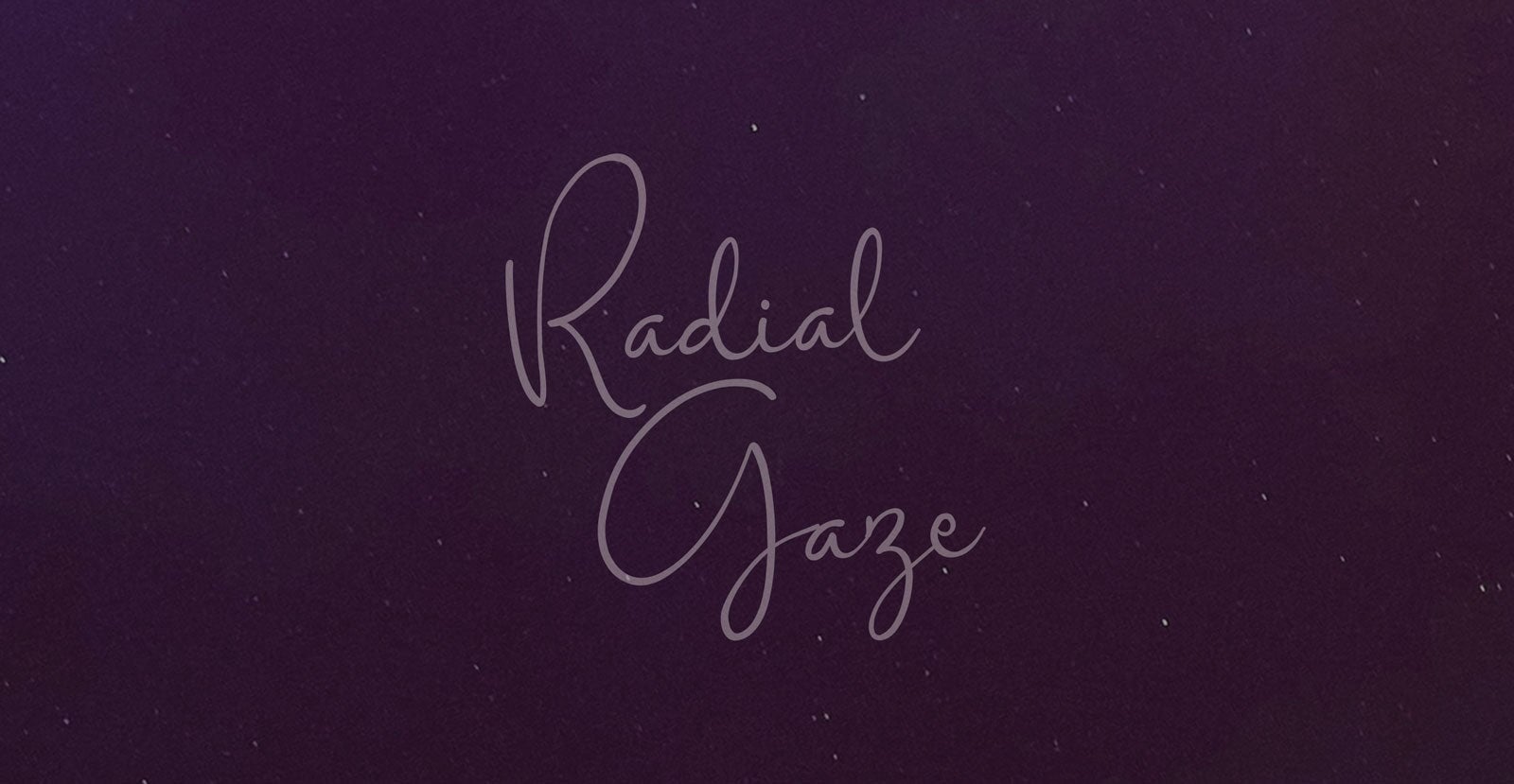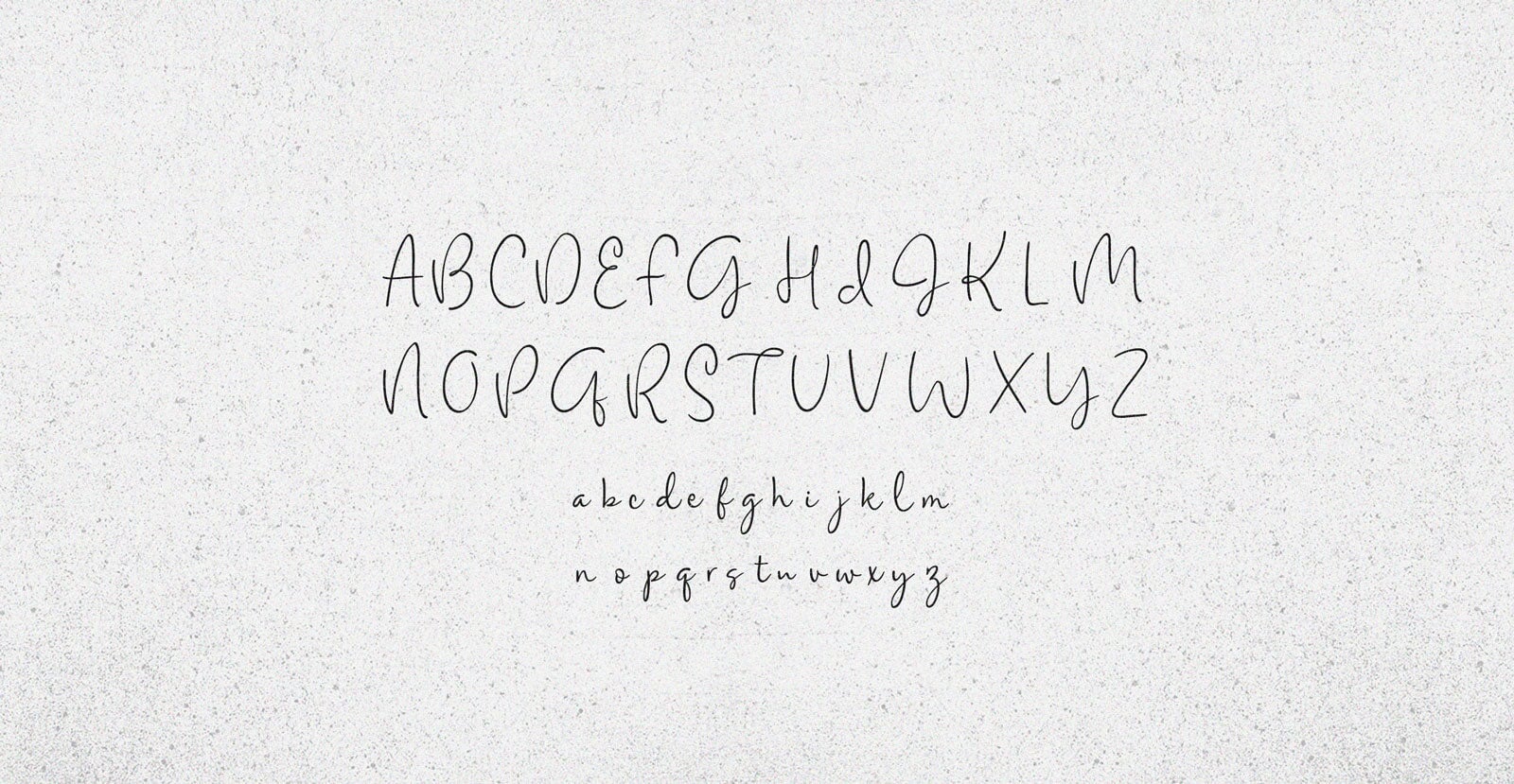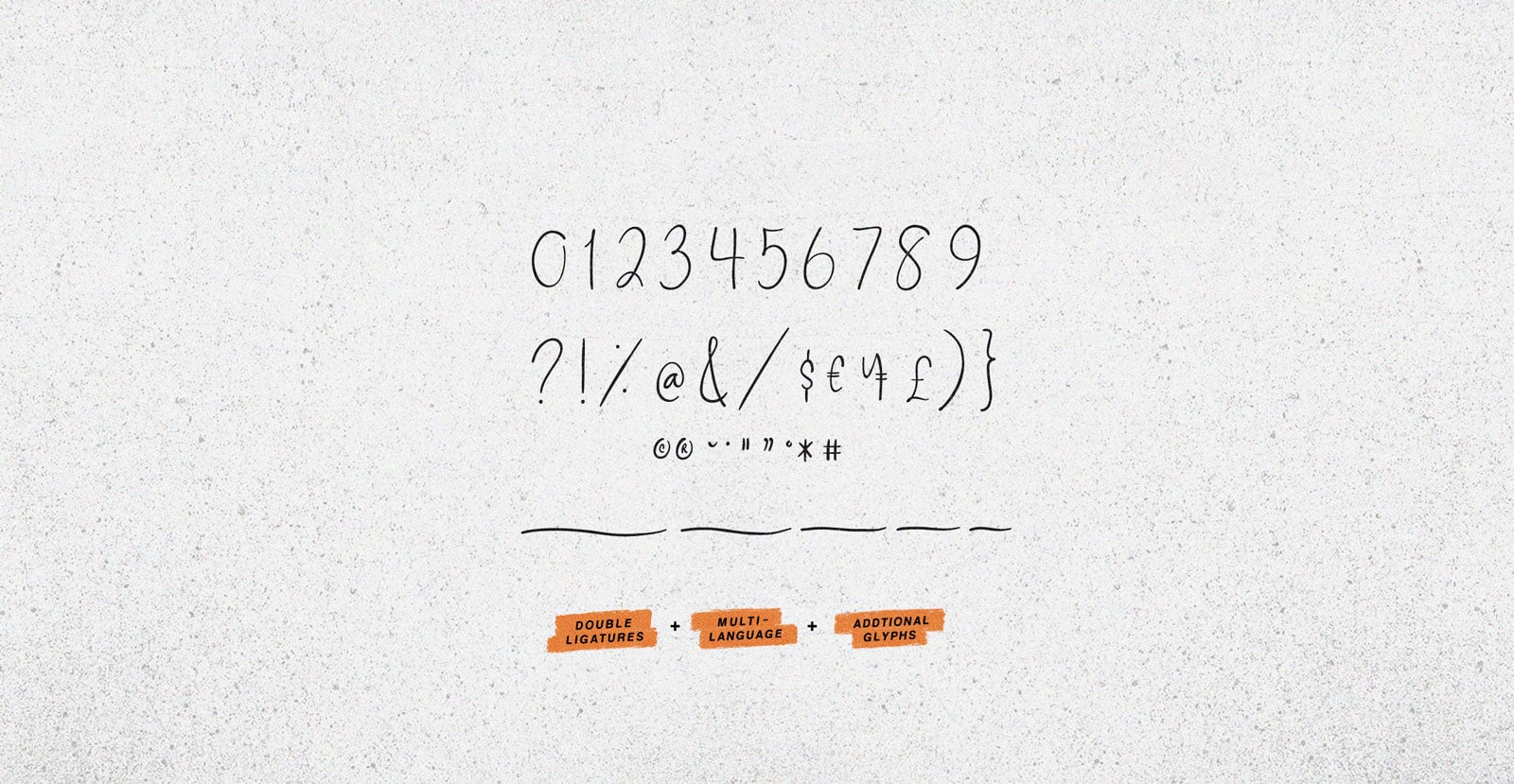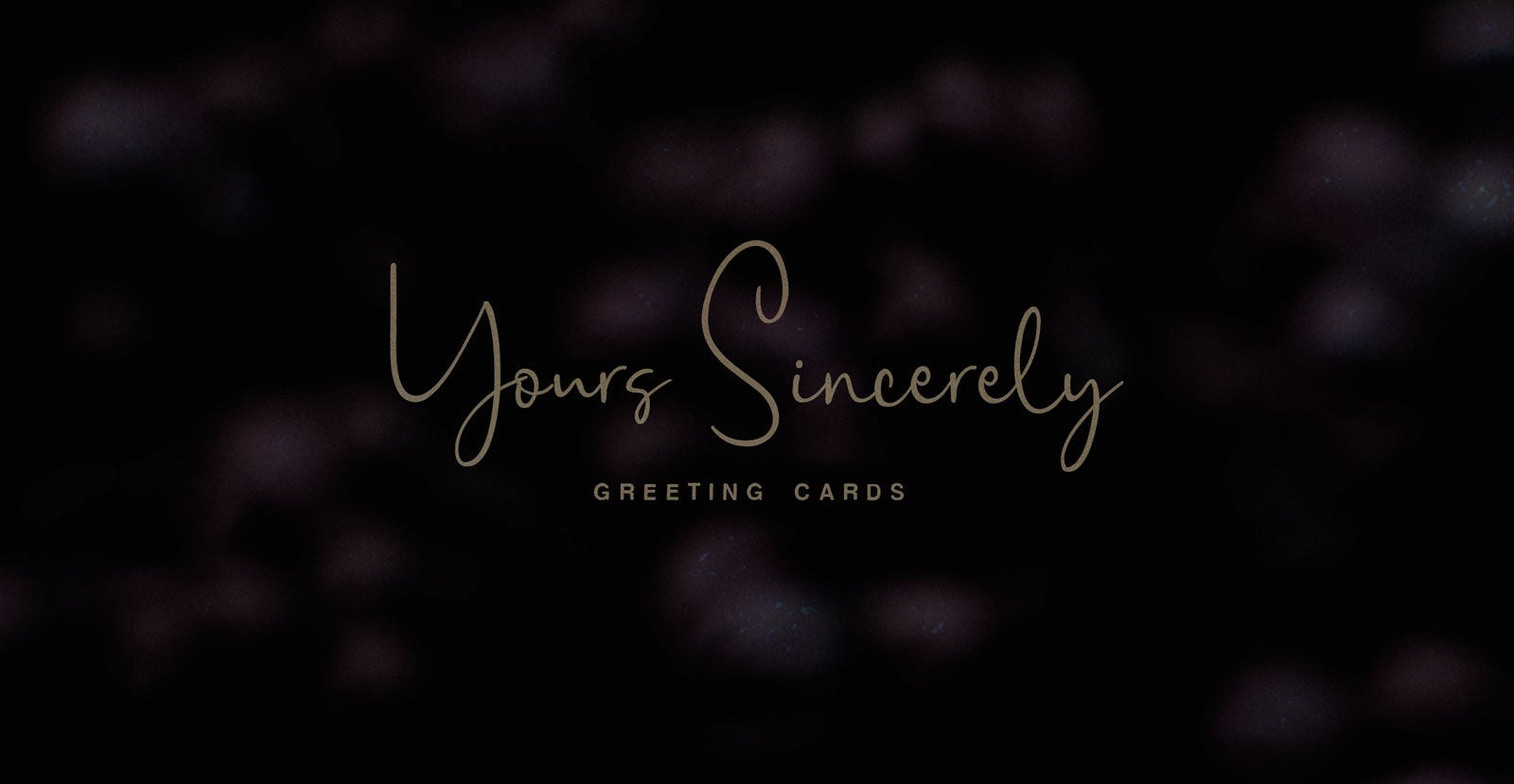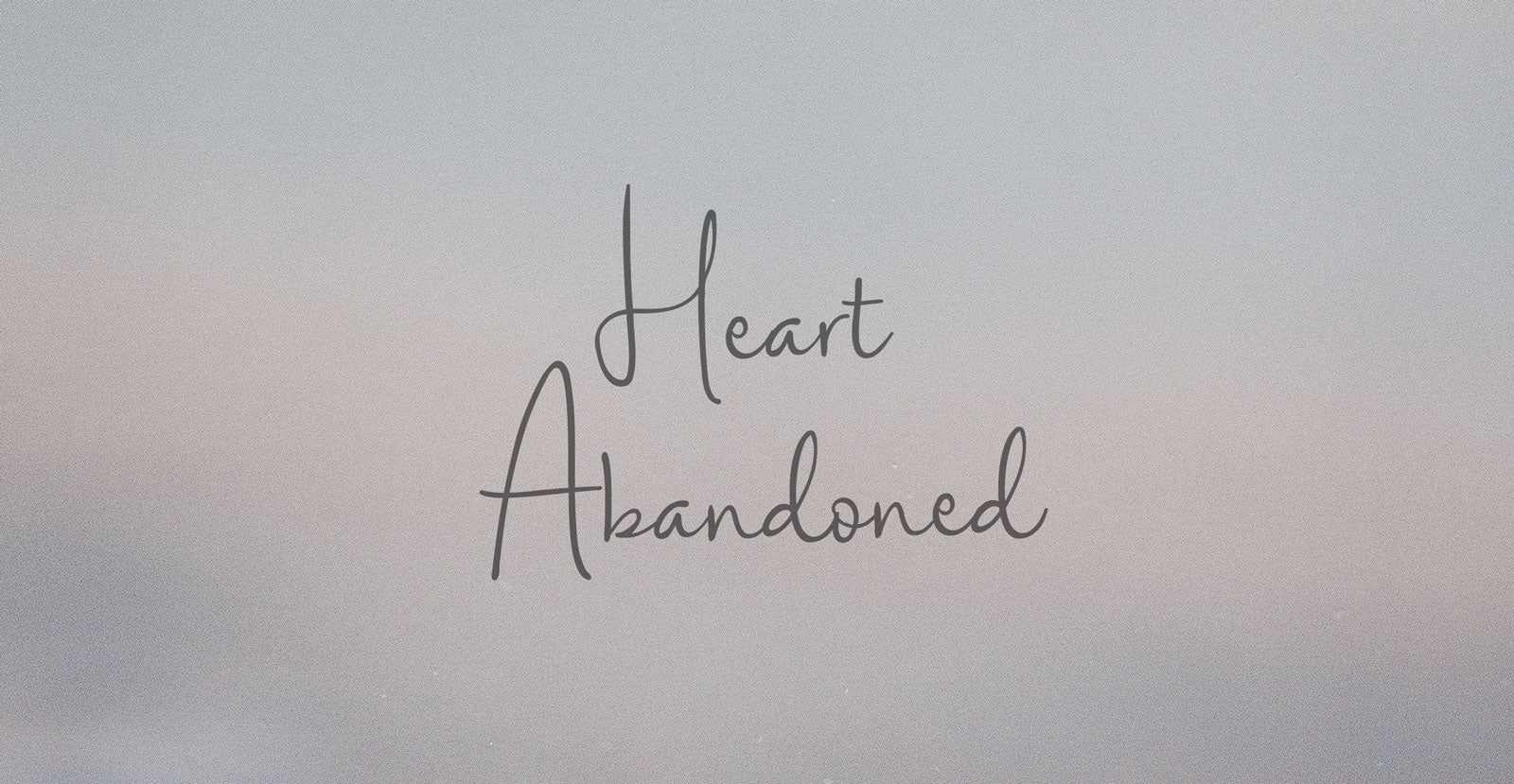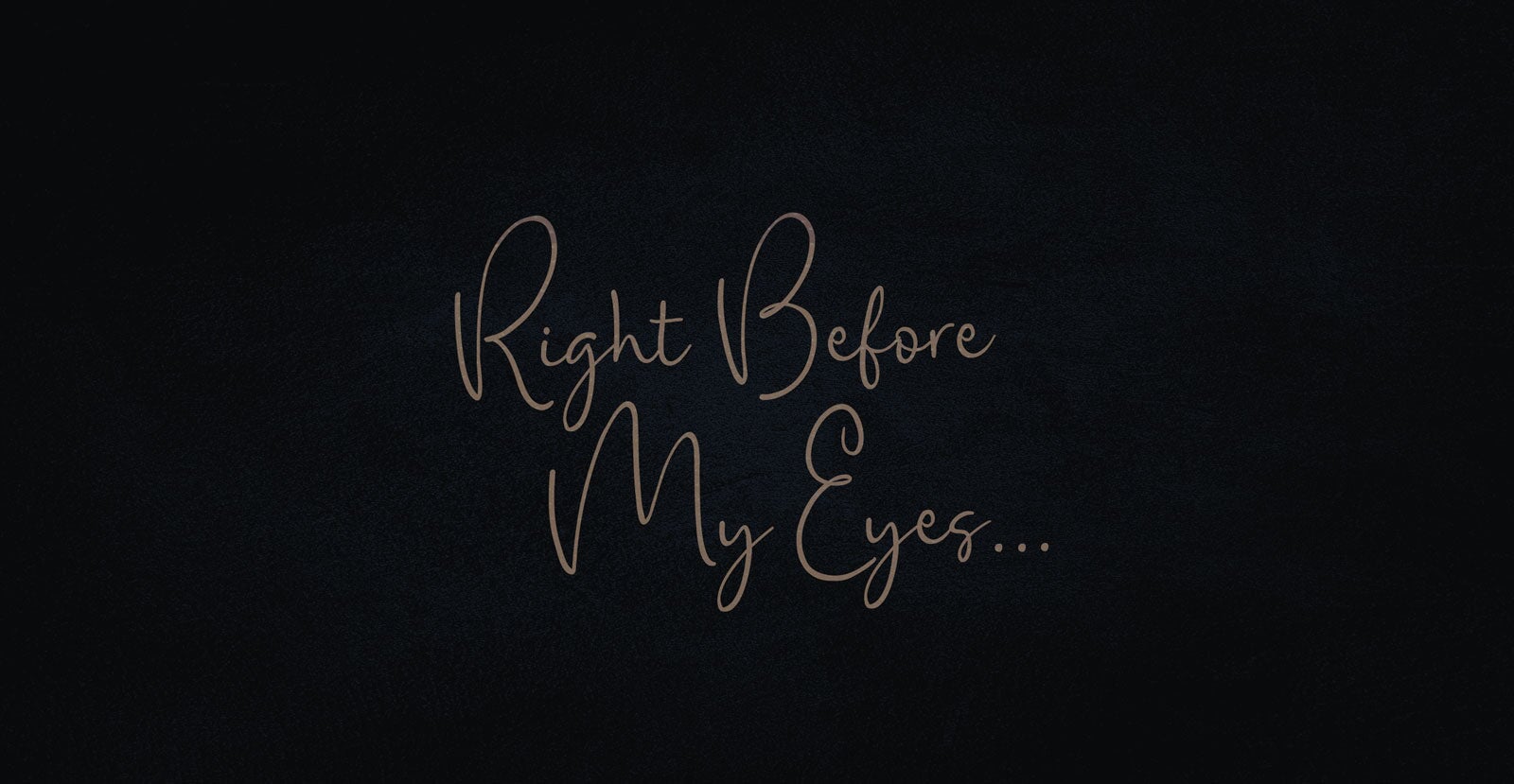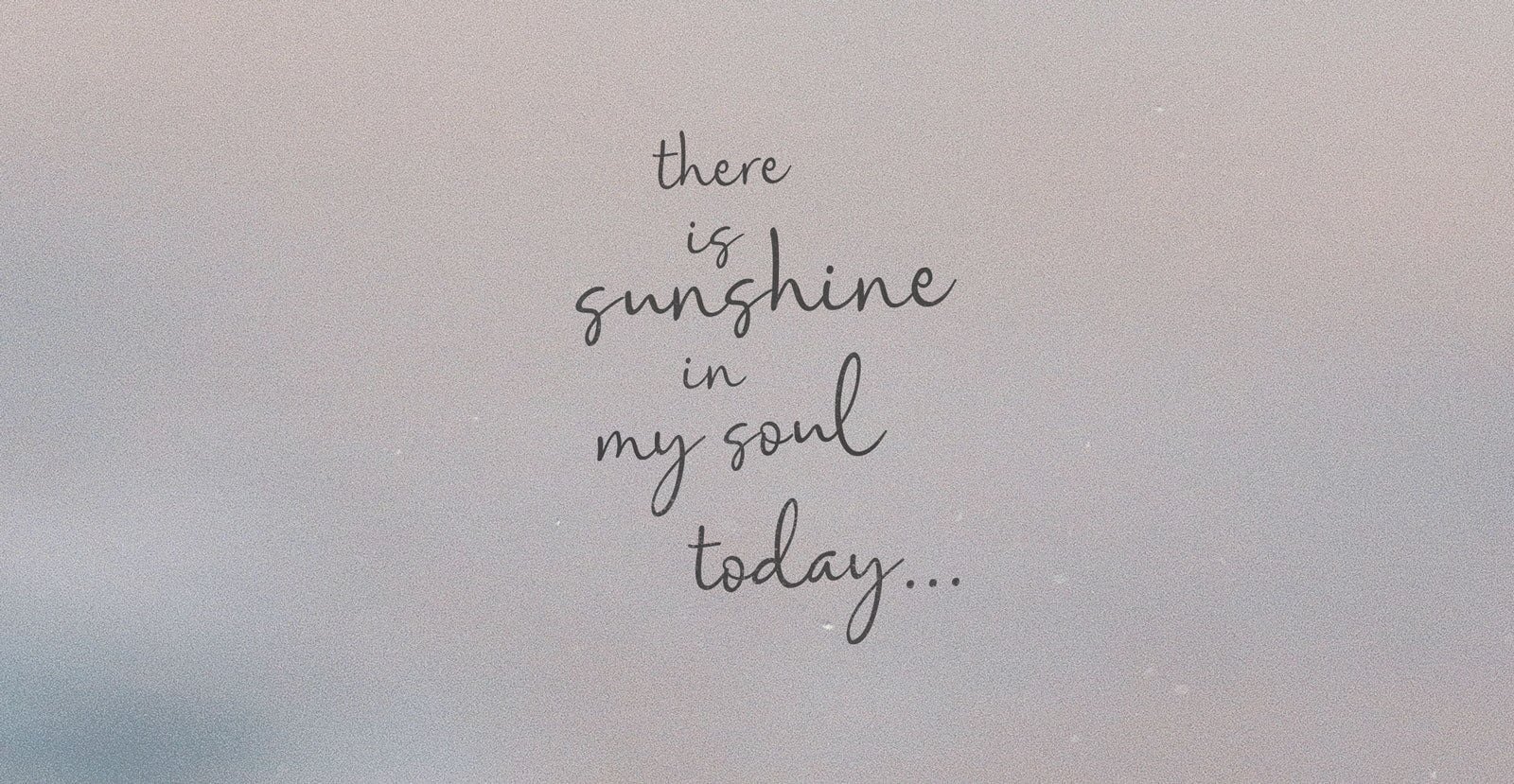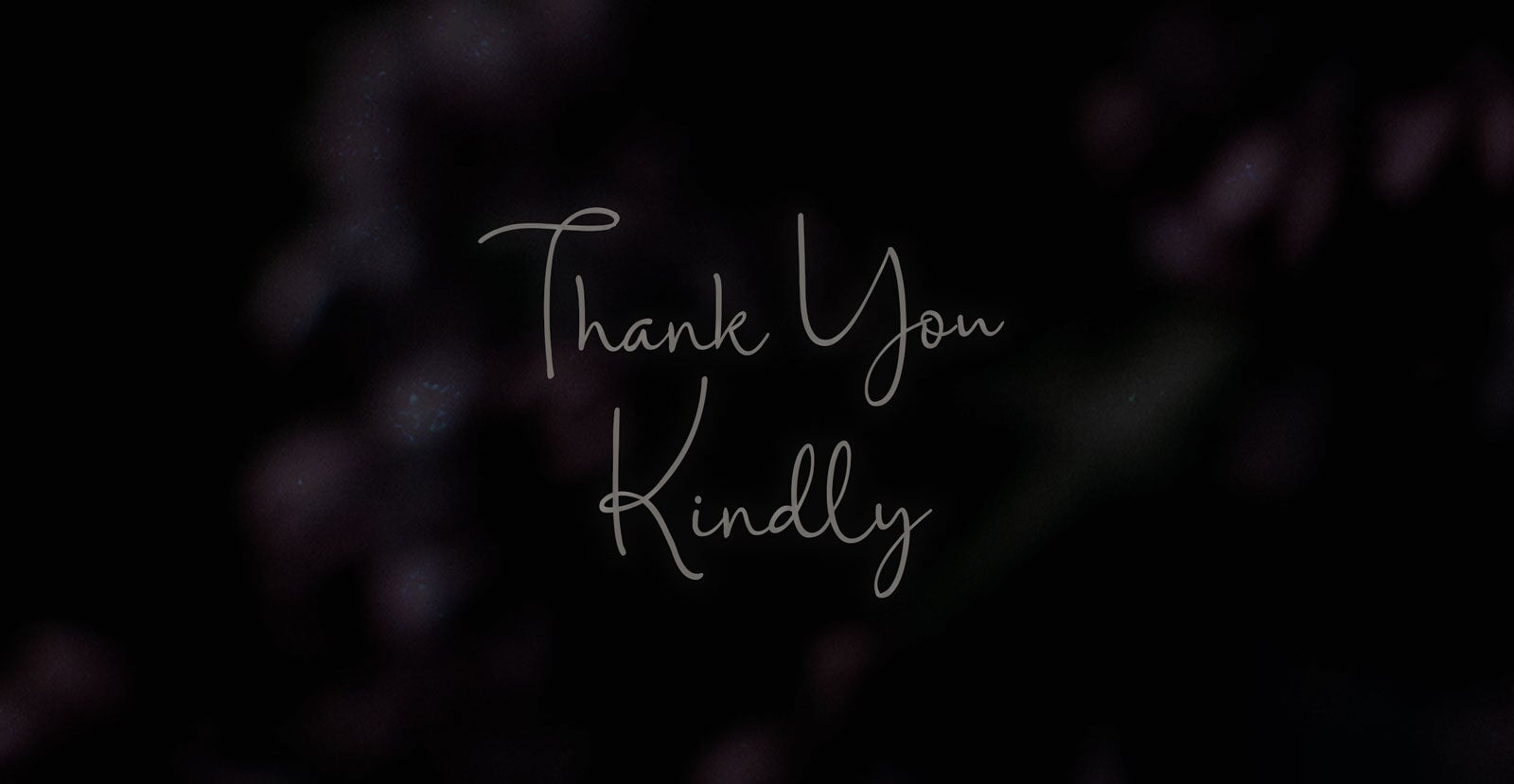
Radial Gaze
Handwritten Pen Script Font
Radial Gaze pulls outward and inward at once—focused, atmospheric, and slightly surreal. It moves in quiet loops, drawing you closer while keeping its distance. A fixed point in motion, where tension meets symmetry.